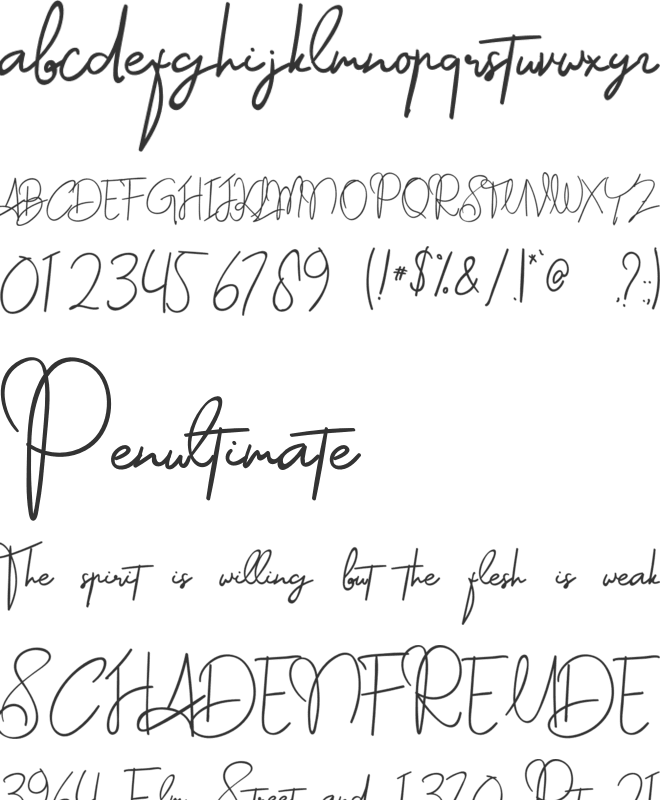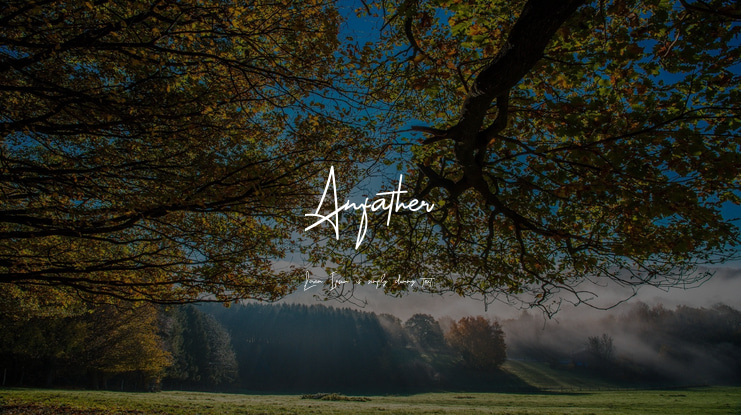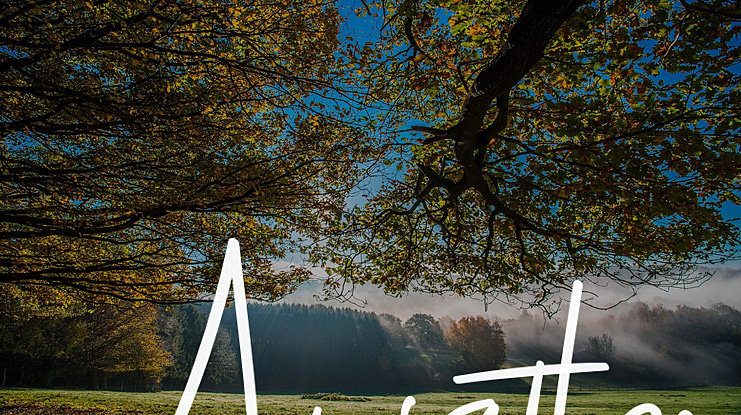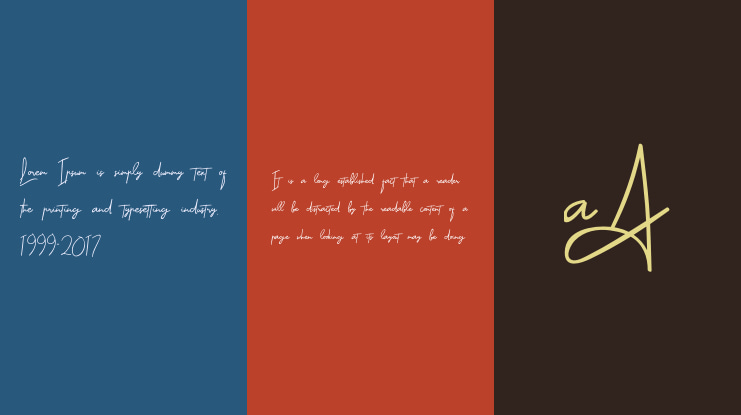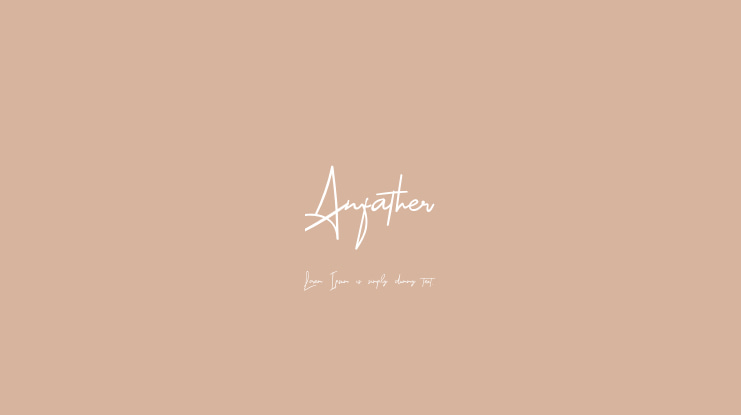
Anfather Font
This font retains a classy calligraphic influence while feeling contemporary and fresh. This versatility will attract a wide range of creative ideas, from letterheads and titles to stationery. _________________________________________________________________________ WARNING!!!